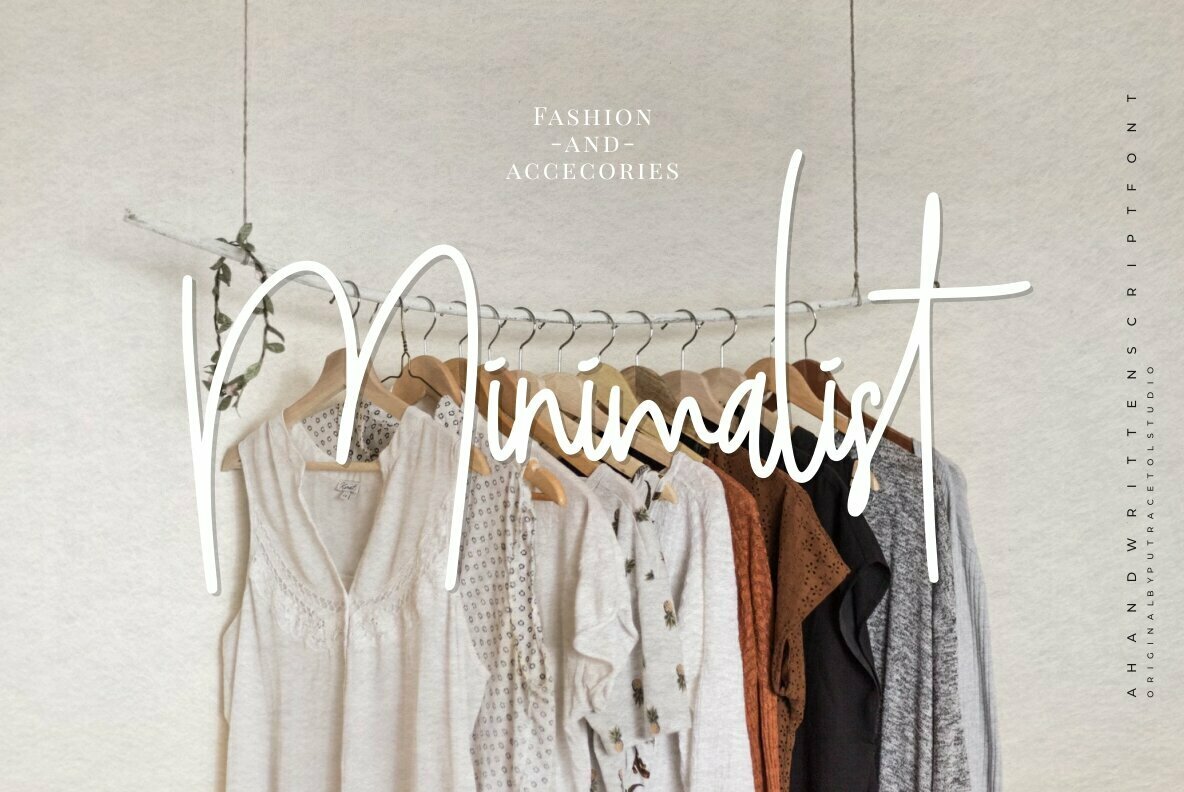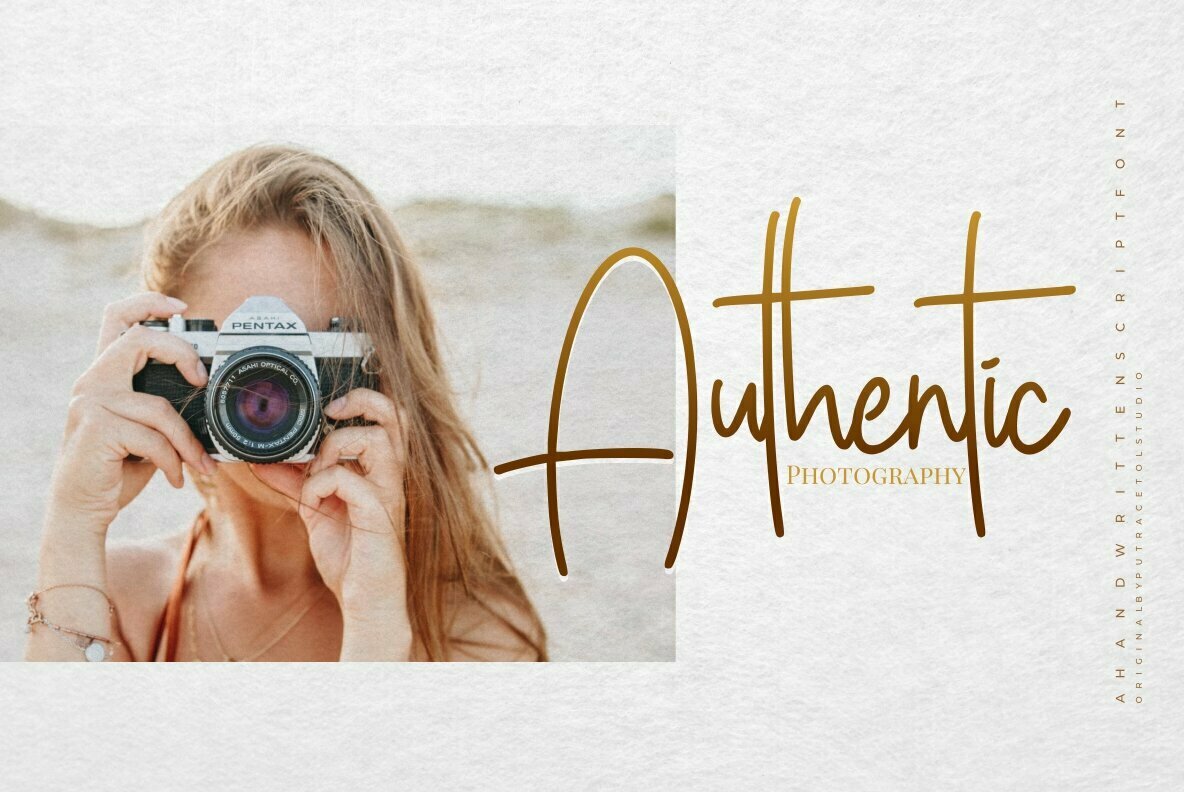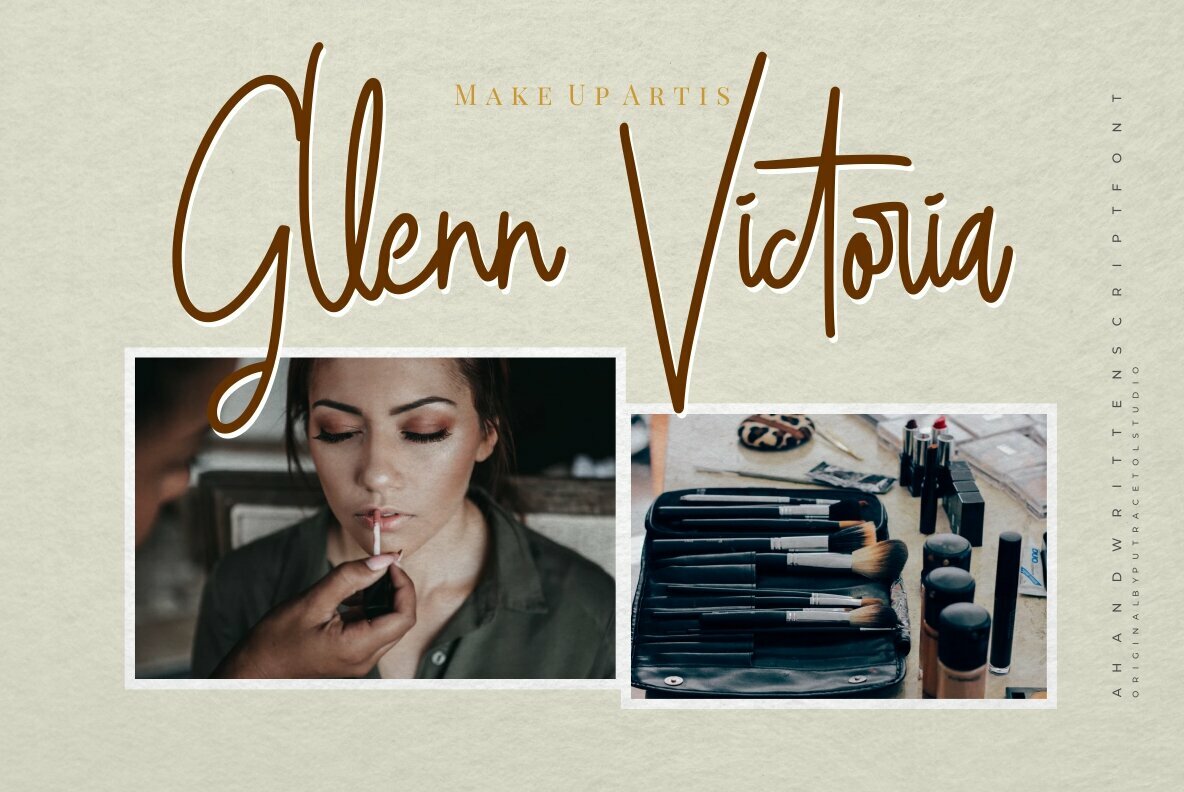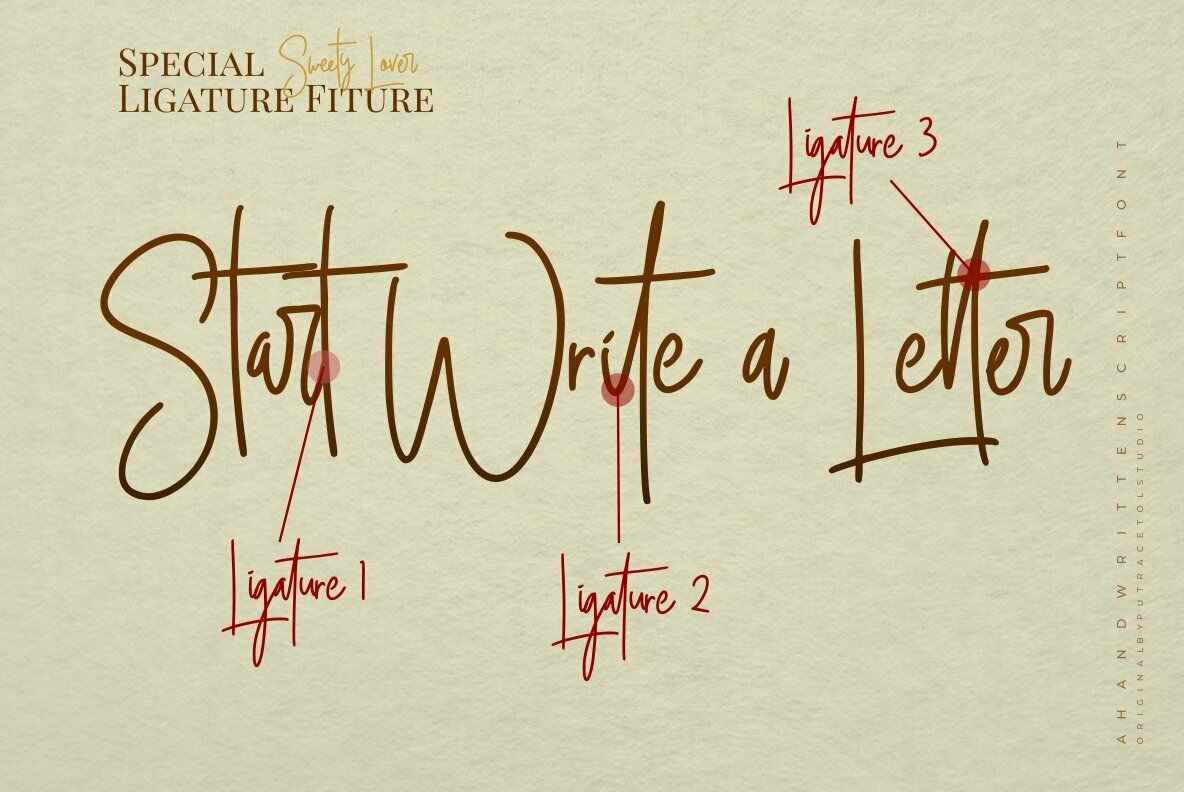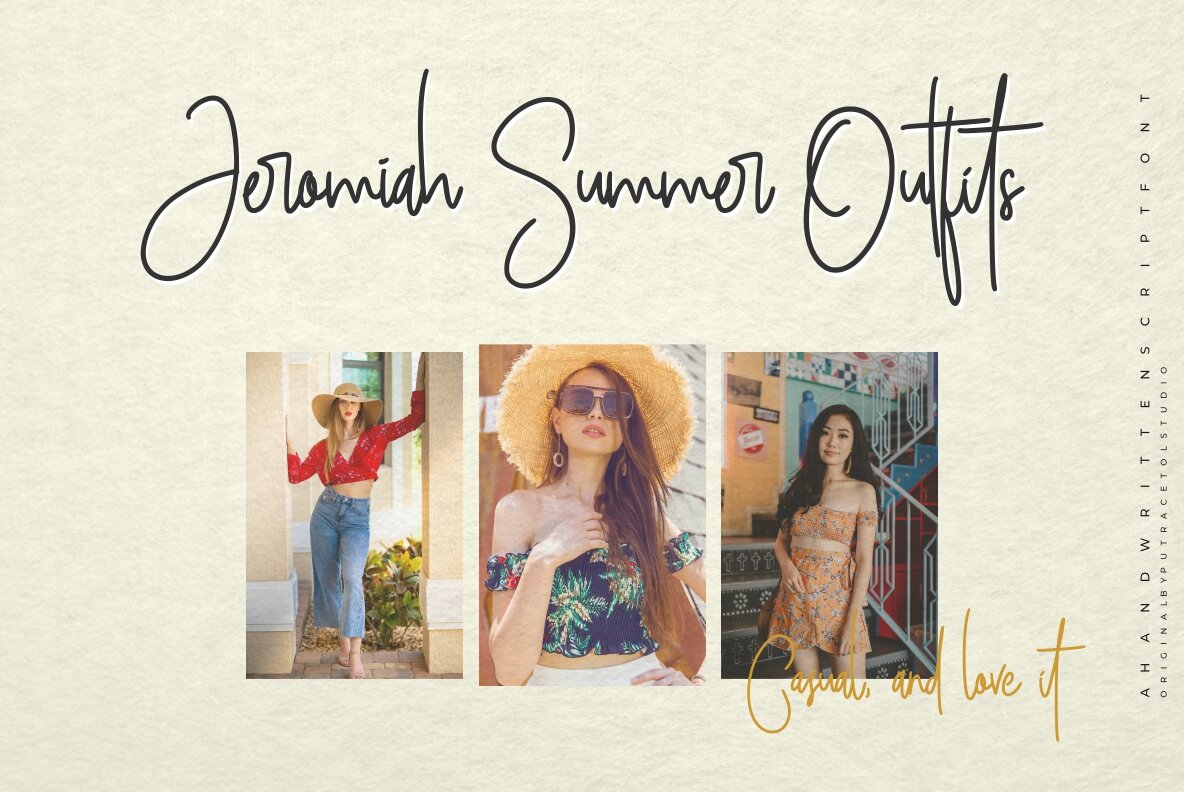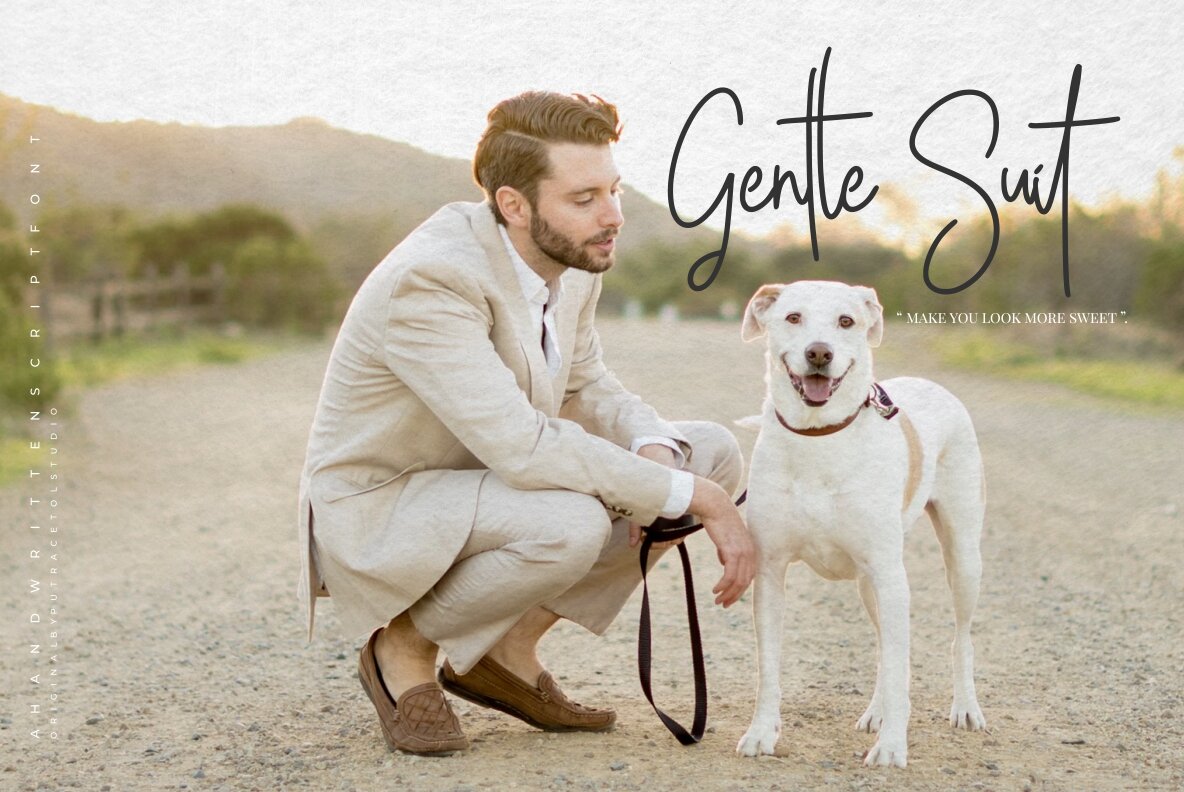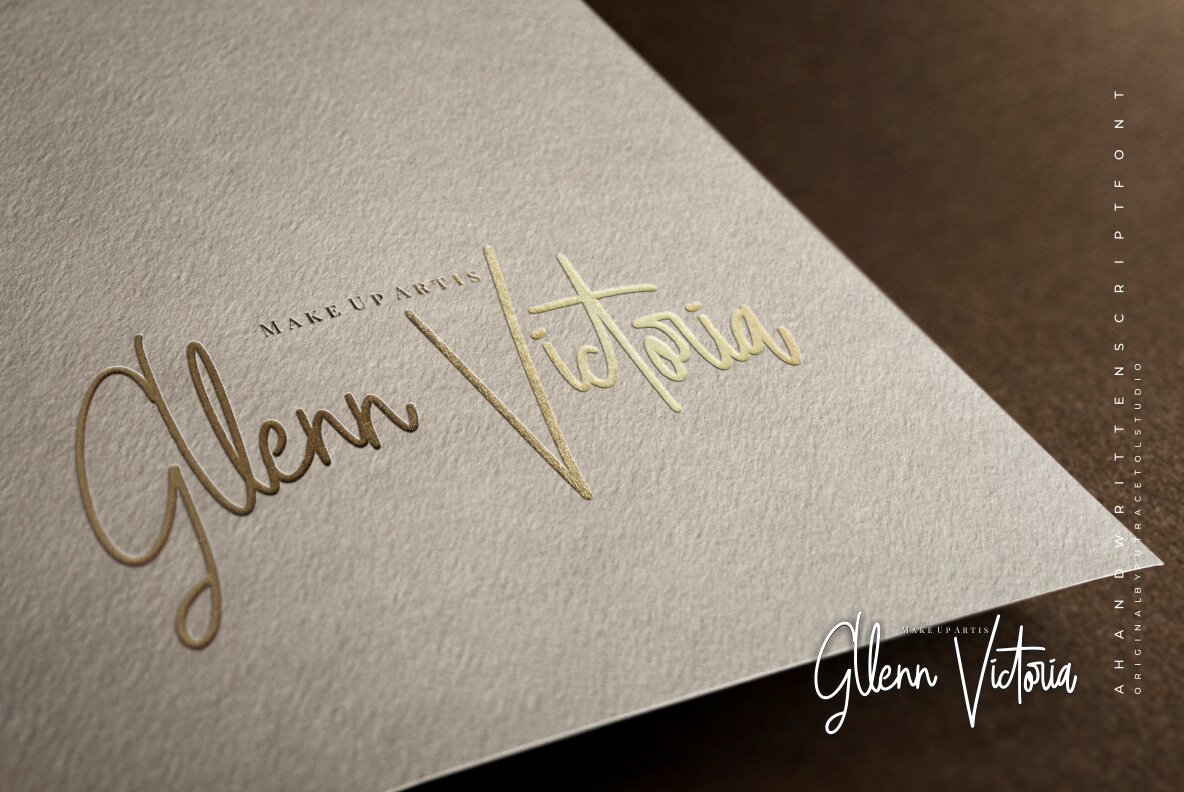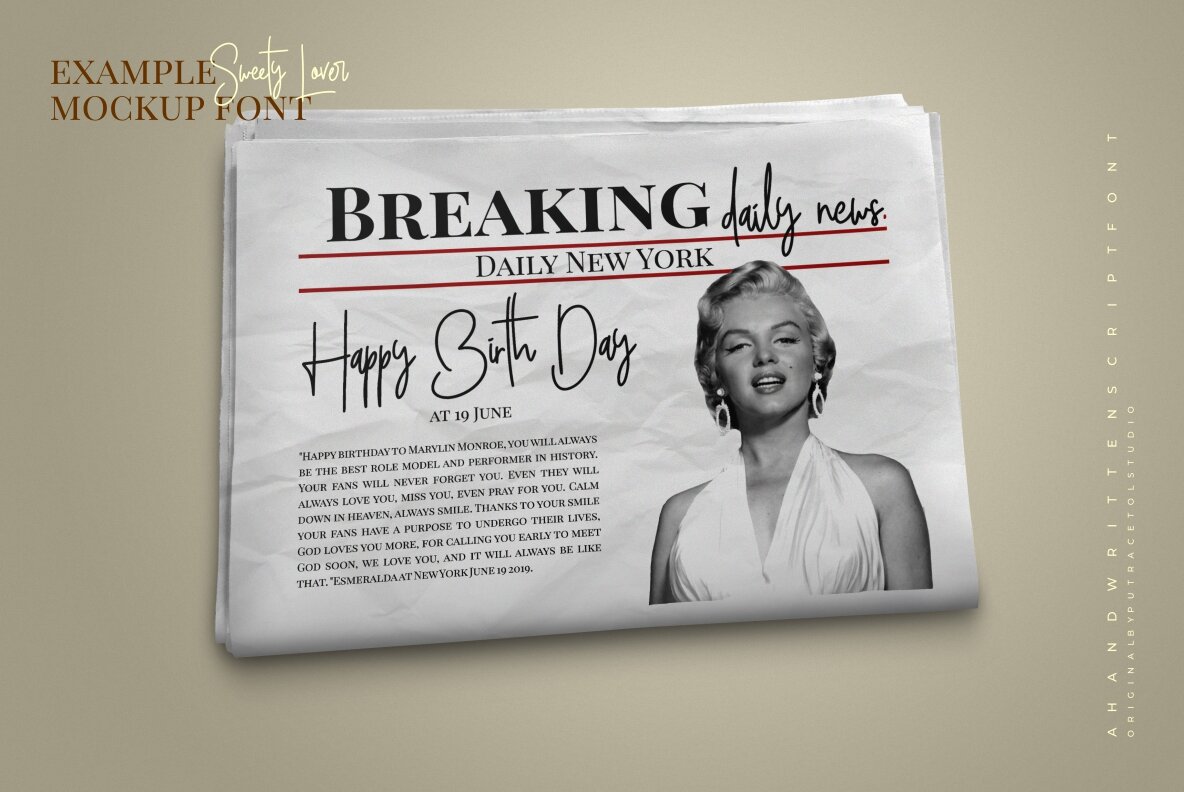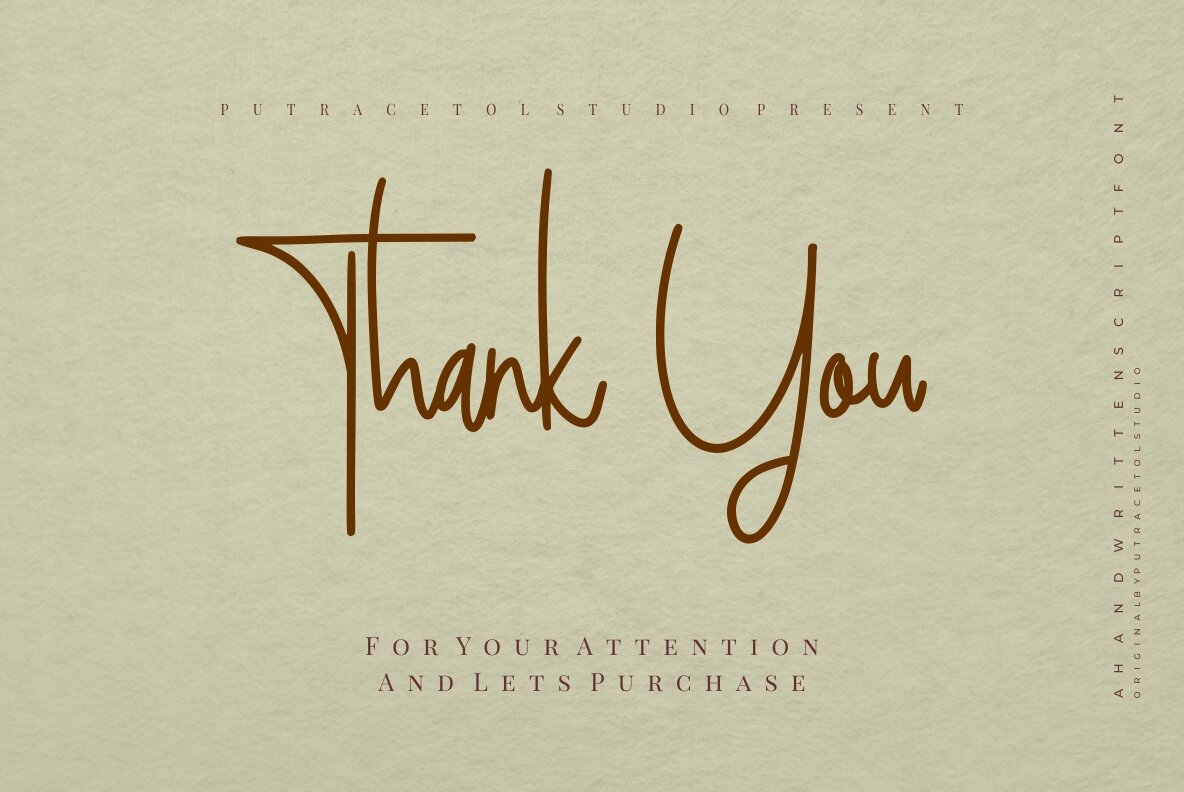
Sweety Lovers Font
Sweety Lover
Sweety Lovers delivers a handwritten signature style that is both natural and sophisticated. Its classy flow captures the essence of personalized artistry, making it ideal for various creative projects. Features: This font is versatile, lending itself perfectly to applications such as signatures, headings, covers, branding, invitations, and more. Whether you're designing a logo, creating product packaging, or crafting a greeting card, Sweety Lovers offers a stylish solution that stands out.Sweety Lovers: Handwritten Elegance for Modern Design